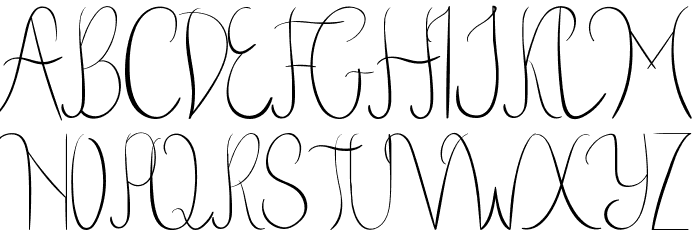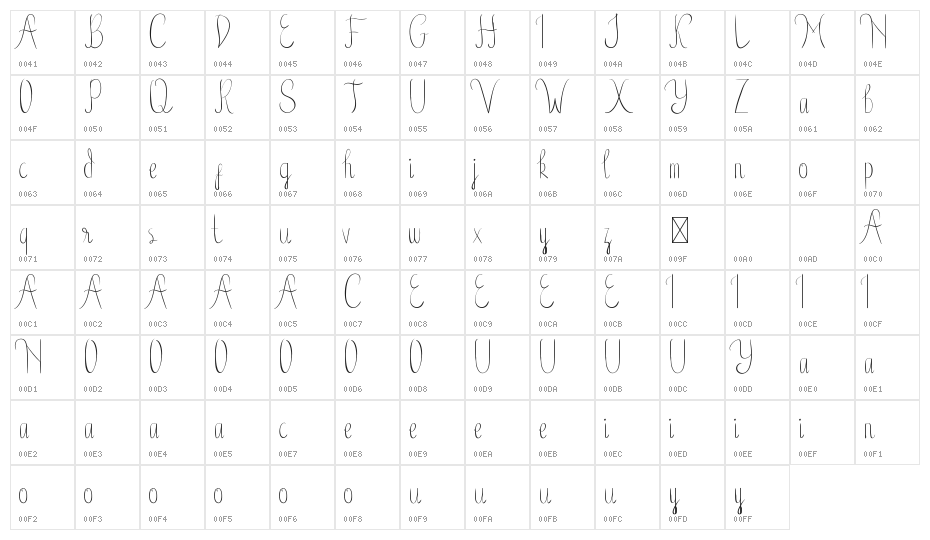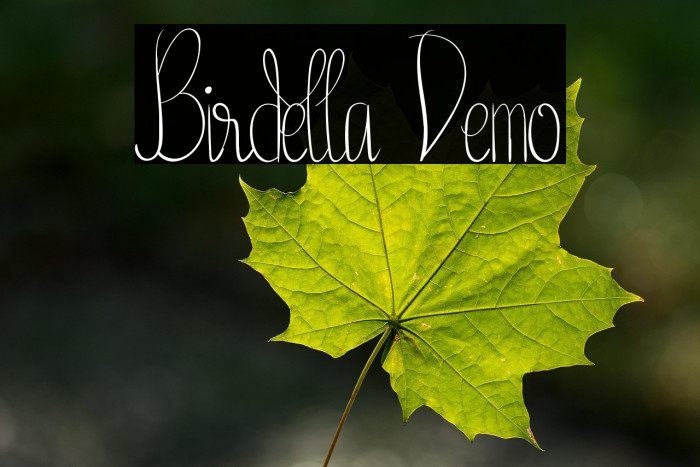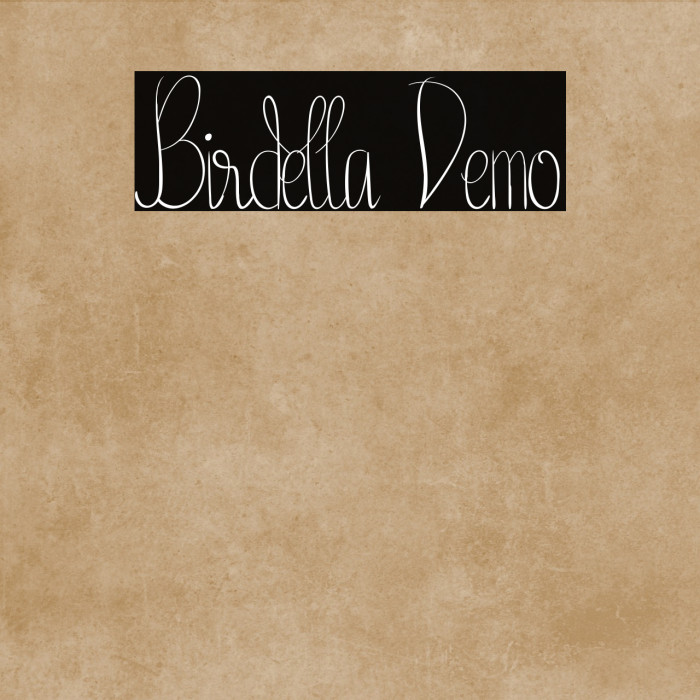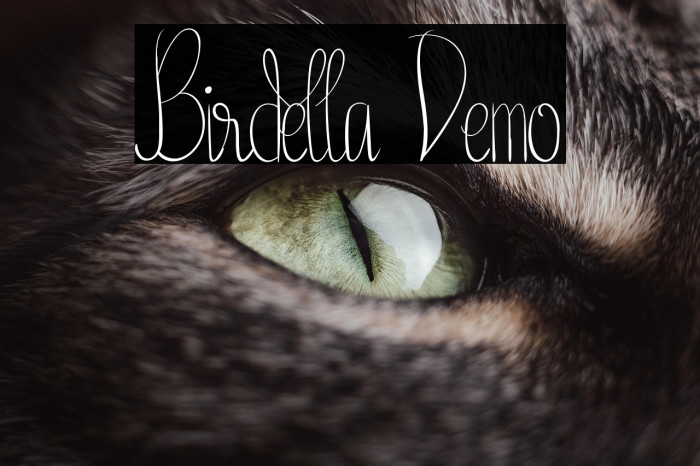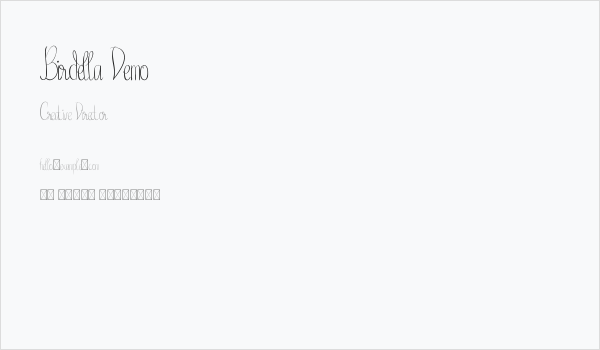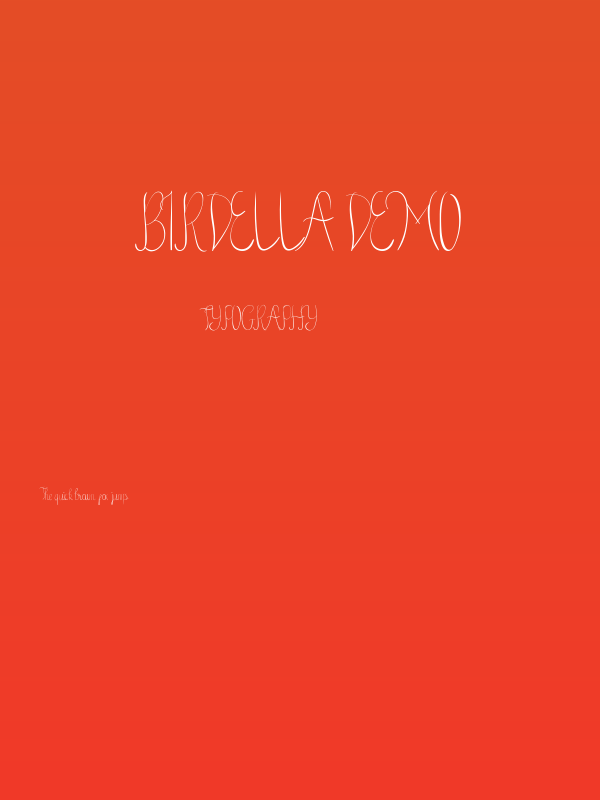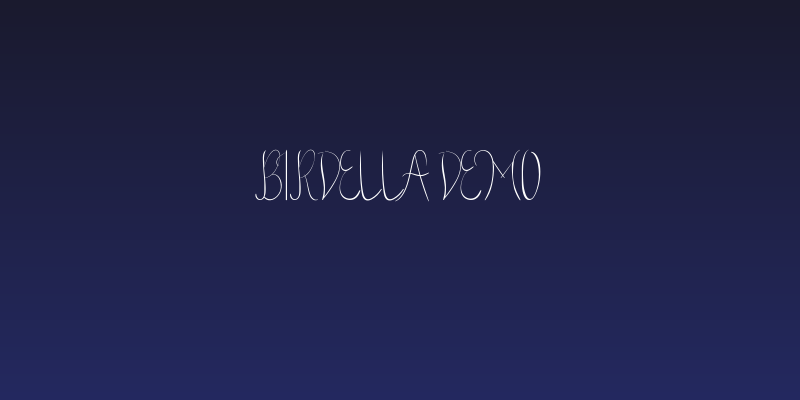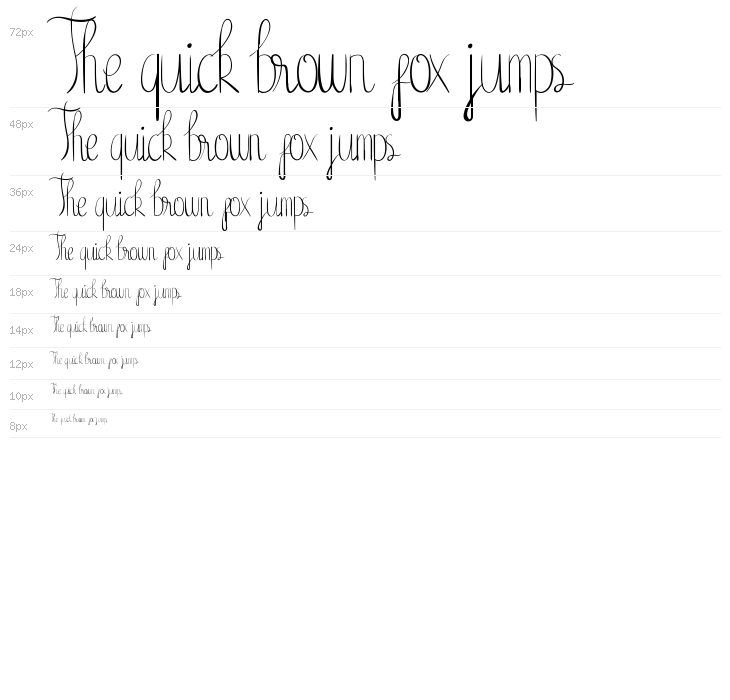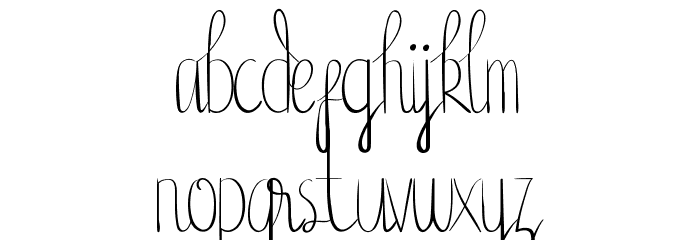
Birdella Demo Font
Birdella Demo Description
This font features an elegant and flowing script style, characterized by its thin, delicate lines and graceful curves. The letters are interconnected, creating a sense of fluidity and movement. The uppercase letters are particularly ornate, with sweeping ascenders and descenders that add a touch of sophistication. The lowercase letters maintain a consistent style, with a slightly more restrained design that complements the uppercase. The overall appearance is both artistic and refined, making it suitable for projects that require a touch of elegance and creativity. The font's unique style is ideal for invitations, branding, and decorative purposes.
| Use Case | Logos, Invitations, Decorative text |
| Proposed Projects | Ideal for wedding invitations, branding, greeting cards, and decorative projects. |